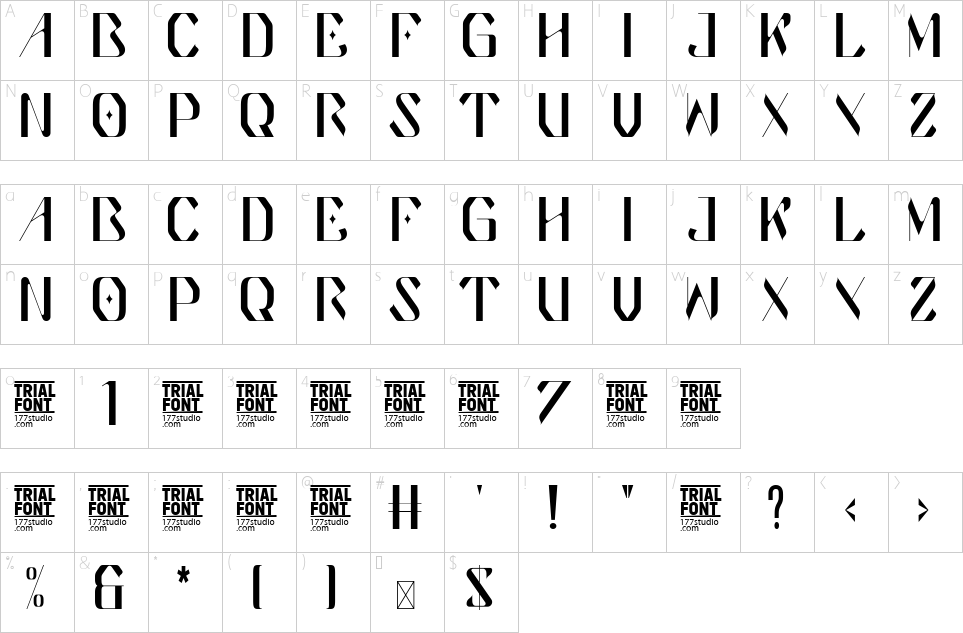
Which Fonts Have Ligatures . Ligatures in fonts are either linguistic or aesthetic ligatures. Whether you’re creating a logo, invitation, or website, the right ligature font can transform your project into something truly remarkable. Click to find the best 1,145 free fonts in the ligatures style. Three of the most interesting and thoughtful monospaced programming fonts with ligatures are fira code, monoid, and hasklig. A glyph that combines the shapes of two (or more) characters into a new form, making for a more harmonious reading experience. Whether you’re designing a brand logo, crafting an invitation, or setting the tone. Fira code, hasklig, and jetbrains mono are probably your best bets out of the 22 options considered. Explore the best font with. Every font is free to download!
Whether you’re designing a brand logo, crafting an invitation, or setting the tone. Explore the best font with. Ligatures in fonts are either linguistic or aesthetic ligatures. Whether you’re creating a logo, invitation, or website, the right ligature font can transform your project into something truly remarkable. Three of the most interesting and thoughtful monospaced programming fonts with ligatures are fira code, monoid, and hasklig. A glyph that combines the shapes of two (or more) characters into a new form, making for a more harmonious reading experience. Fira code, hasklig, and jetbrains mono are probably your best bets out of the 22 options considered. Click to find the best 1,145 free fonts in the ligatures style. Every font is free to download!
Which Fonts Have Ligatures Fira code, hasklig, and jetbrains mono are probably your best bets out of the 22 options considered. Whether you’re designing a brand logo, crafting an invitation, or setting the tone. Fira code, hasklig, and jetbrains mono are probably your best bets out of the 22 options considered. Three of the most interesting and thoughtful monospaced programming fonts with ligatures are fira code, monoid, and hasklig. A glyph that combines the shapes of two (or more) characters into a new form, making for a more harmonious reading experience. Whether you’re creating a logo, invitation, or website, the right ligature font can transform your project into something truly remarkable. Explore the best font with. Click to find the best 1,145 free fonts in the ligatures style. Ligatures in fonts are either linguistic or aesthetic ligatures. Every font is free to download!
Featured image Which Fonts Have Ligatures in fonts are either linguistic or aesthetic ligatures. A glyph that combines the shapes of two (or more) characters into a new form, making for a more harmonious reading experience. Three of the most interesting and thoughtful monospaced programming fonts with ligatures are fira code, monoid, and hasklig. Explore the best font with. Fira code, hasklig, and jetbrains mono. Which Fonts Have Ligatures.
Design Trend Report Sans Serif Ligature Fonts Creative Market Blog Which Fonts Have Ligatures Three of the most interesting and thoughtful monospaced programming fonts with ligatures are fira code, monoid, and hasklig. Click to find the best 1,145 free fonts in the ligatures style. Whether you’re designing a brand logo, crafting an invitation, or setting the tone. Whether you’re creating a logo, invitation, or website, the right ligature font can transform your project into. Which Fonts Have Ligatures.
Ligature font Royalty Free Vector Image VectorStock Which Fonts Have Ligatures Explore the best font with. A glyph that combines the shapes of two (or more) characters into a new form, making for a more harmonious reading experience. Fira code, hasklig, and jetbrains mono are probably your best bets out of the 22 options considered. Whether you’re designing a brand logo, crafting an invitation, or setting the tone. Ligatures in fonts. Which Fonts Have Ligatures.
Ligature Font Bundle (1752900) Which Fonts Have Ligatures Click to find the best 1,145 free fonts in the ligatures style. Whether you’re designing a brand logo, crafting an invitation, or setting the tone. Fira code, hasklig, and jetbrains mono are probably your best bets out of the 22 options considered. A glyph that combines the shapes of two (or more) characters into a new form, making for a. Which Fonts Have Ligatures.
Esther Stylish Ligature Font Dafont Free Which Fonts Have Ligatures in fonts are either linguistic or aesthetic ligatures. Fira code, hasklig, and jetbrains mono are probably your best bets out of the 22 options considered. Whether you’re creating a logo, invitation, or website, the right ligature font can transform your project into something truly remarkable. Whether you’re designing a brand logo, crafting an invitation, or setting the tone. Three. Which Fonts Have Ligatures.
Five typography rules to design by Leff Communications Which Fonts Have Ligatures Every font is free to download! Explore the best font with. Ligatures in fonts are either linguistic or aesthetic ligatures. Whether you’re creating a logo, invitation, or website, the right ligature font can transform your project into something truly remarkable. Fira code, hasklig, and jetbrains mono are probably your best bets out of the 22 options considered. Whether you’re designing. Which Fonts Have Ligatures.
Stylish Unique Ligature Font Design Cuts Which Fonts Have Ligatures Click to find the best 1,145 free fonts in the ligatures style. Three of the most interesting and thoughtful monospaced programming fonts with ligatures are fira code, monoid, and hasklig. Every font is free to download! Whether you’re designing a brand logo, crafting an invitation, or setting the tone. A glyph that combines the shapes of two (or more) characters. Which Fonts Have Ligatures.
Reval Modern Ligature Font Etsy Which Fonts Have Ligatures Click to find the best 1,145 free fonts in the ligatures style. Ligatures in fonts are either linguistic or aesthetic ligatures. Explore the best font with. Every font is free to download! Fira code, hasklig, and jetbrains mono are probably your best bets out of the 22 options considered. Whether you’re creating a logo, invitation, or website, the right ligature. Which Fonts Have Ligatures.
Ligature Font Download For Free, View Sample Text, Rating And More On Which Fonts Have Ligatures Click to find the best 1,145 free fonts in the ligatures style. Three of the most interesting and thoughtful monospaced programming fonts with ligatures are fira code, monoid, and hasklig. Ligatures in fonts are either linguistic or aesthetic ligatures. Every font is free to download! Explore the best font with. A glyph that combines the shapes of two (or more). Which Fonts Have Ligatures.